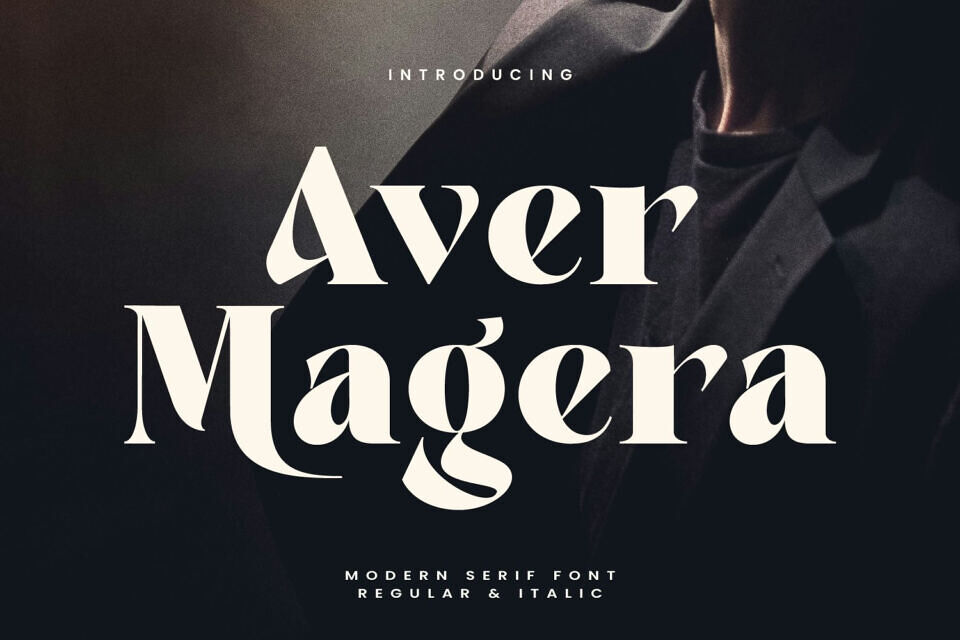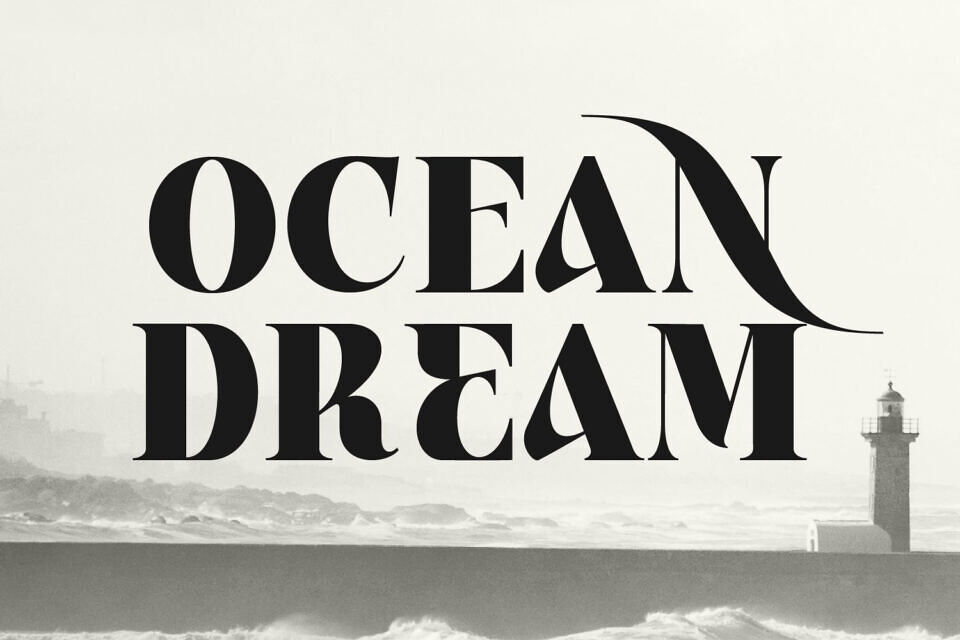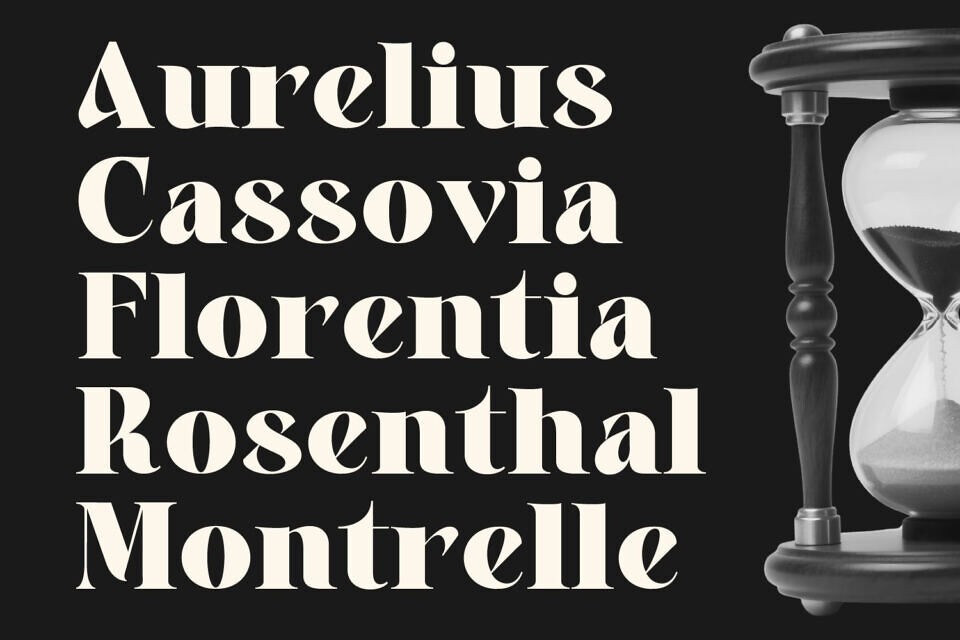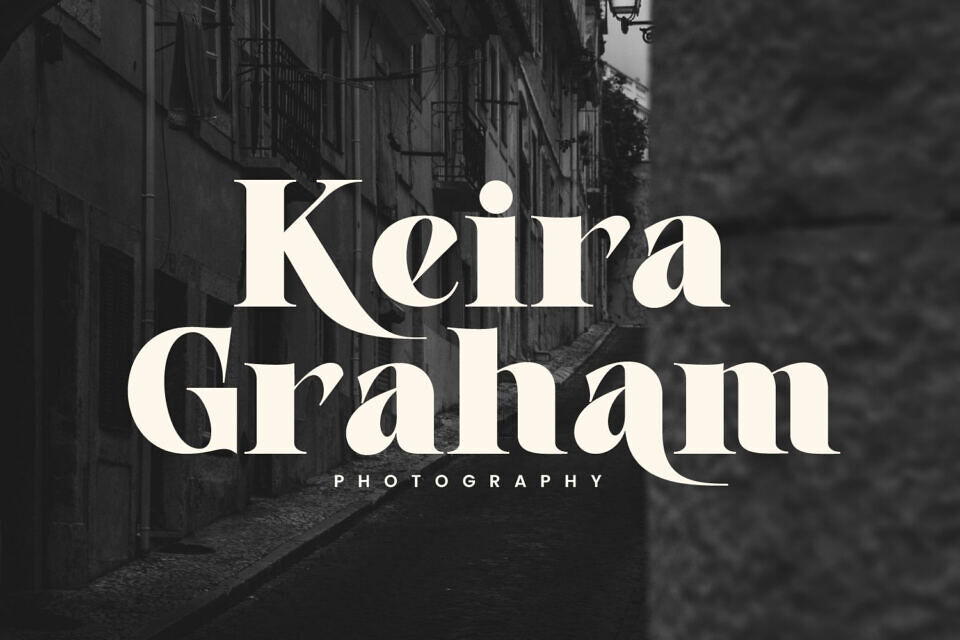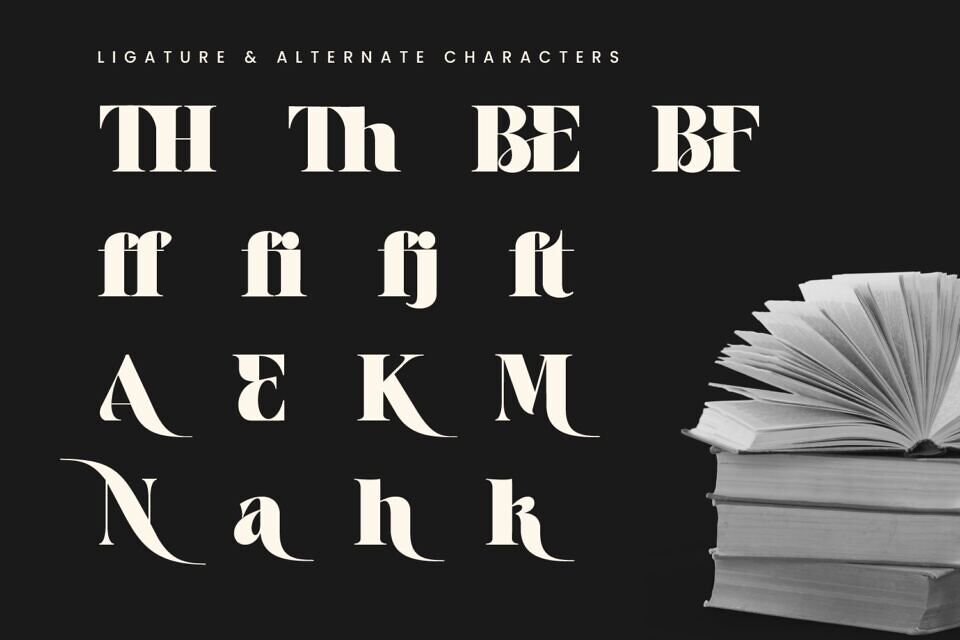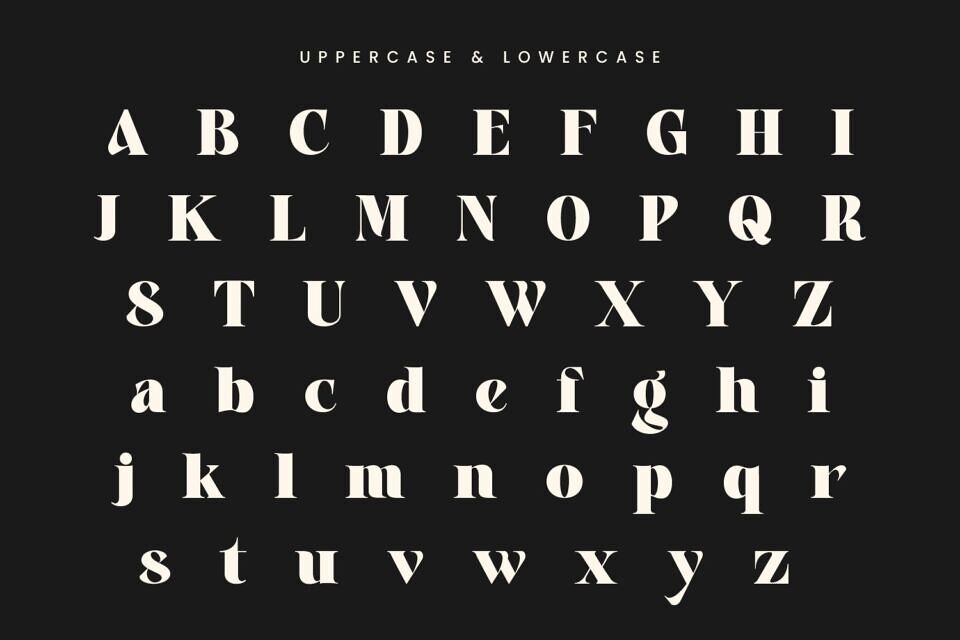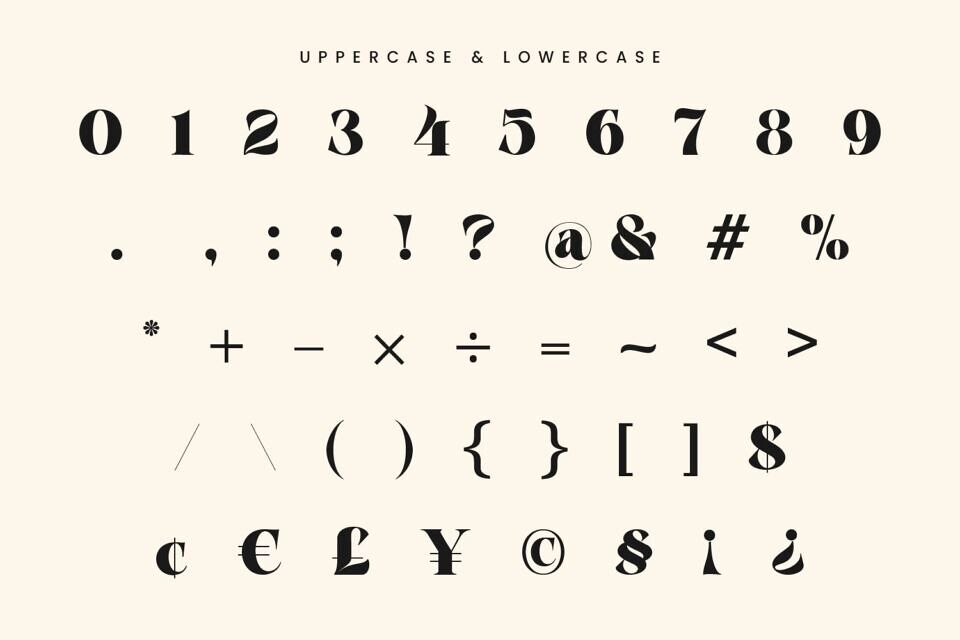
Aver Magera Font
Aver Magera is a modern serif font with a touch of timeless elegance. Designed with bold contrasts and refined curves, it brings a luxurious yet highly legible character to your projects. Its unique cuts and graceful shapes create a distinctive artistic feel, making it perfect for creative works that demand sophistication.